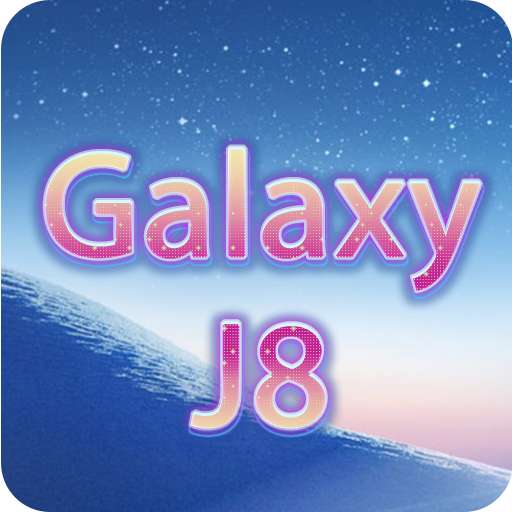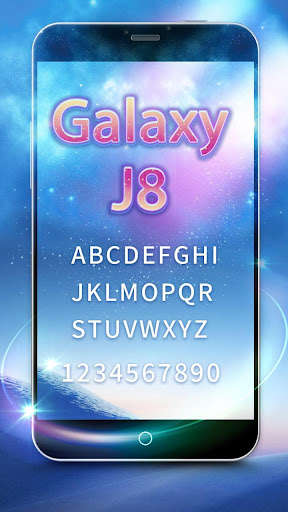
Samsung Galaxy allows all users to change the system font of your phone or tablet .
Please enjoy the pack of Fonts for Android FlipFonts to provide you the ability to change your devices typeface for free.
You can find the amazing and perfect font style which fits your taste well.
Change your entire phone font into Samsung Galaxy.
Come and experience the customized font for you.
The feature of Samsung Galaxy is compatible ability.
Lovely, sweet and colorful as you wish.
Hundreds of selected fonts style from handwritten fonts like Samsung Galaxy, such as cute, darker, comic, galaxy, love, pink, sexy written, colorful fonts, clean fonts, candy fonts, etc.
Special designer's font zone added!!!
12.New font will be released weekly.
13.Colorful fonts added!!!(For Android 4.4 and higher device only)